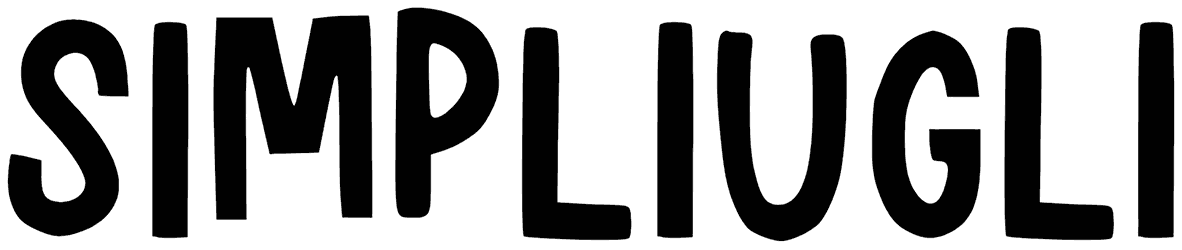
Simpliugli Font
This adorable cartoon font is known as Simpliugli, and it has a beautiful appearance. Despite the lack of lowercase letters and numbers, this fancy font can be used for anything, including logos, blog headlines, branding…
This adorable cartoon font is known as Simpliugli, and it has a beautiful appearance. Despite the lack of lowercase letters and numbers, this fancy font can be used for anything, including logos, blog headlines, branding, poster designs, and many other things.
Simpli Ugli. is a great font for those whom like somewhat simpli ugli fonts!